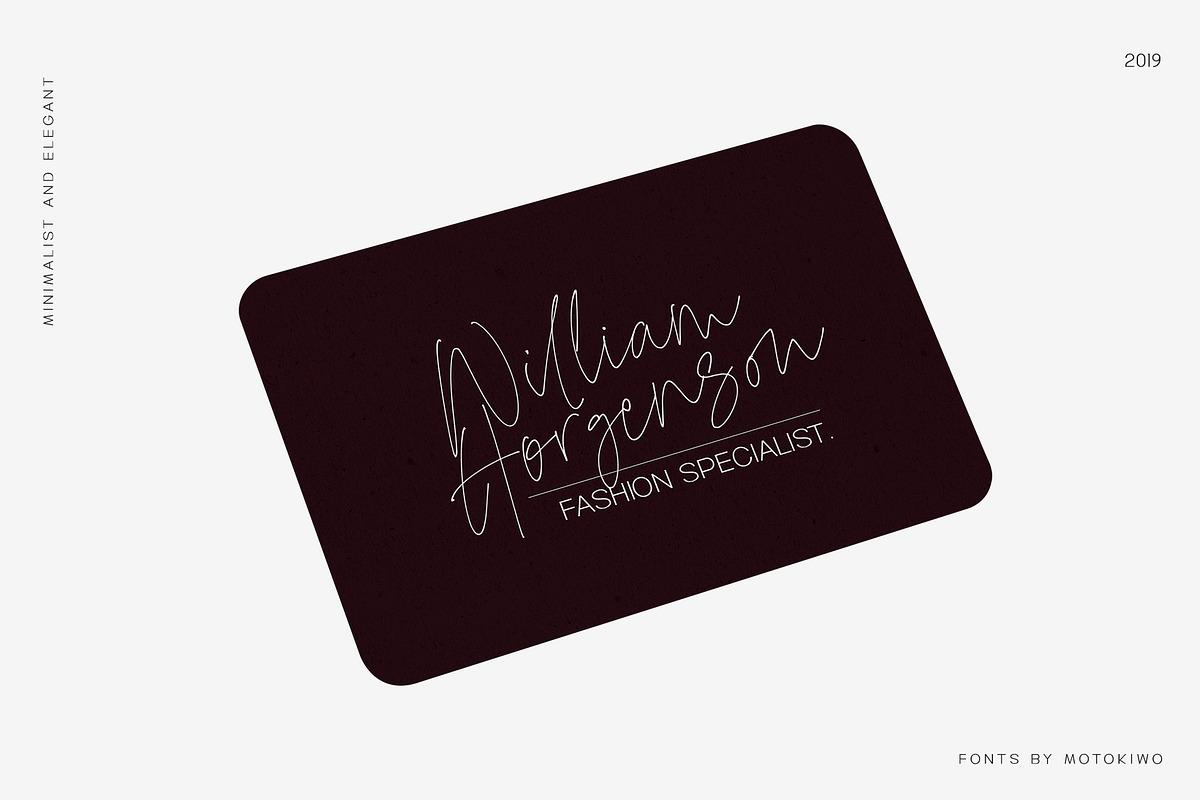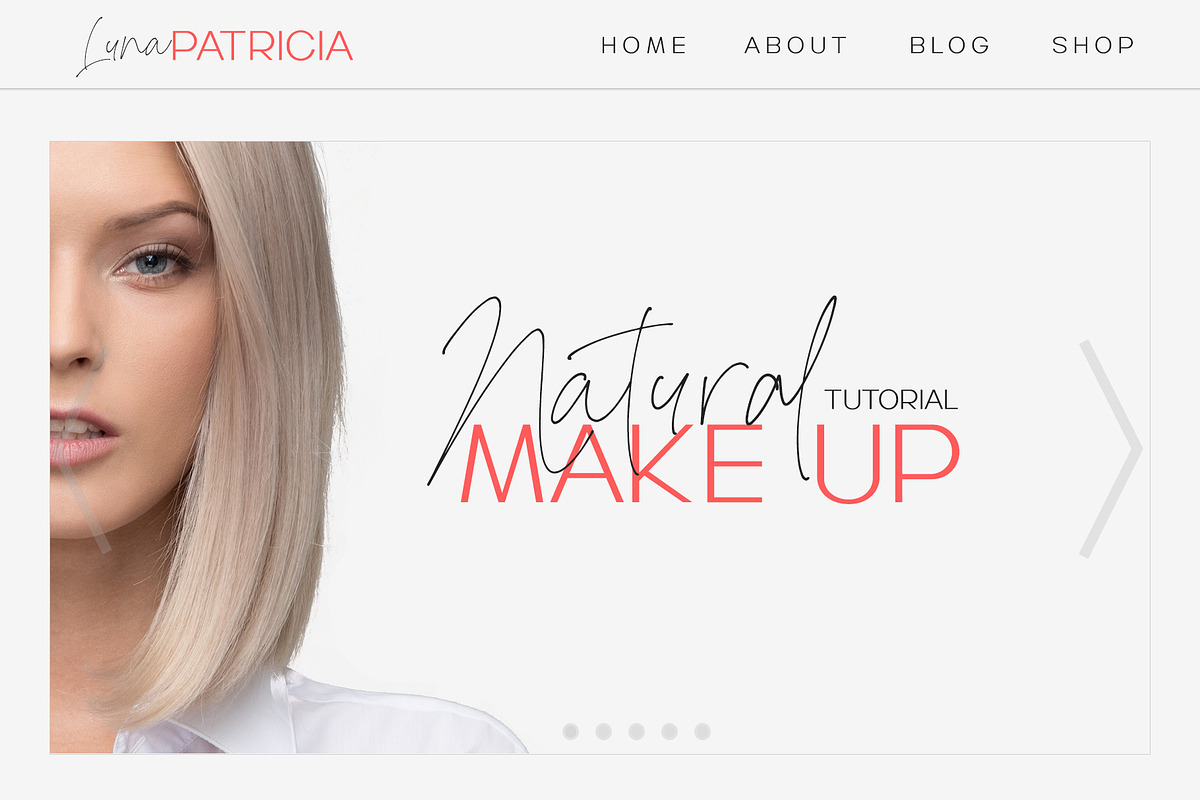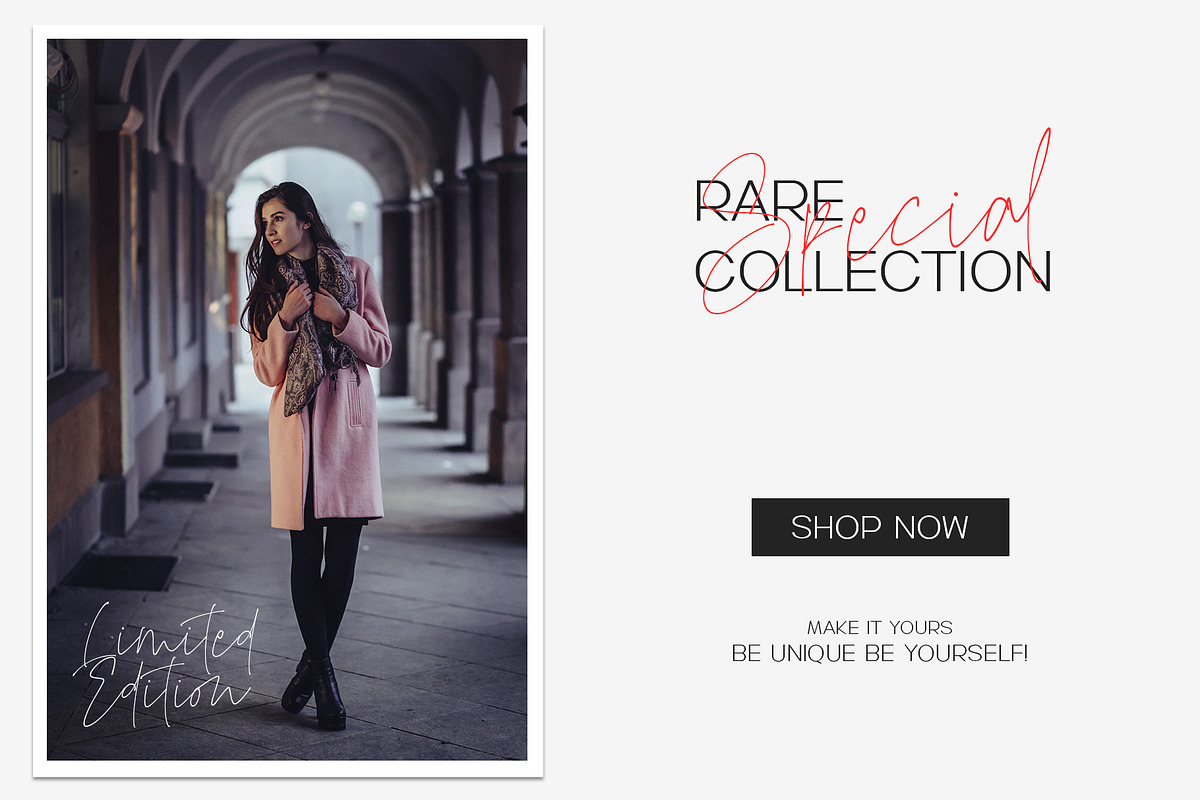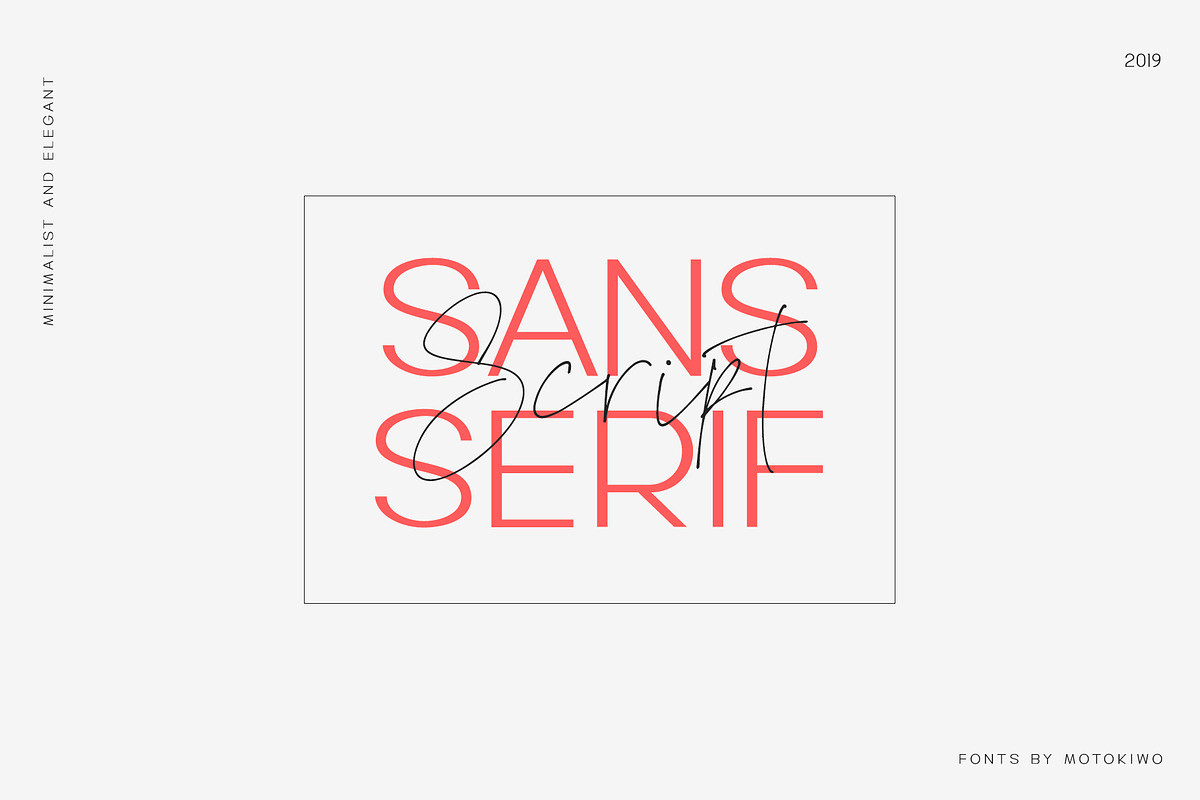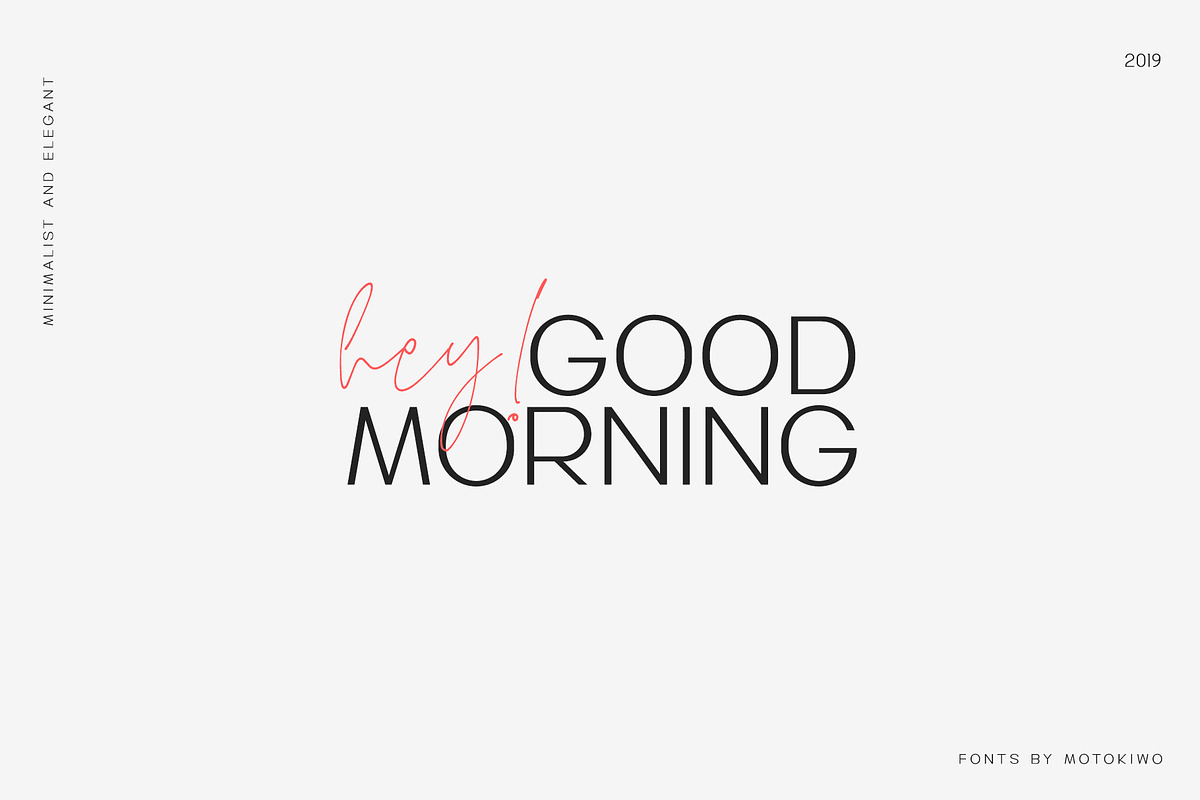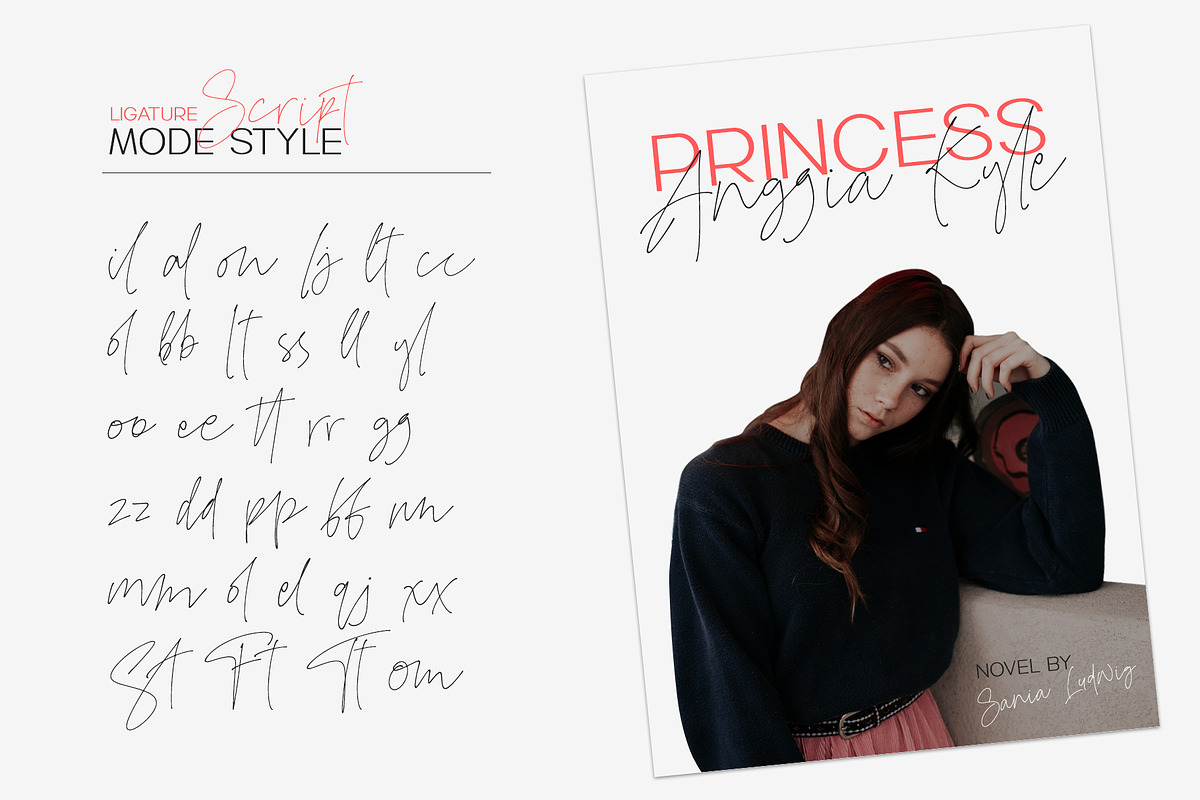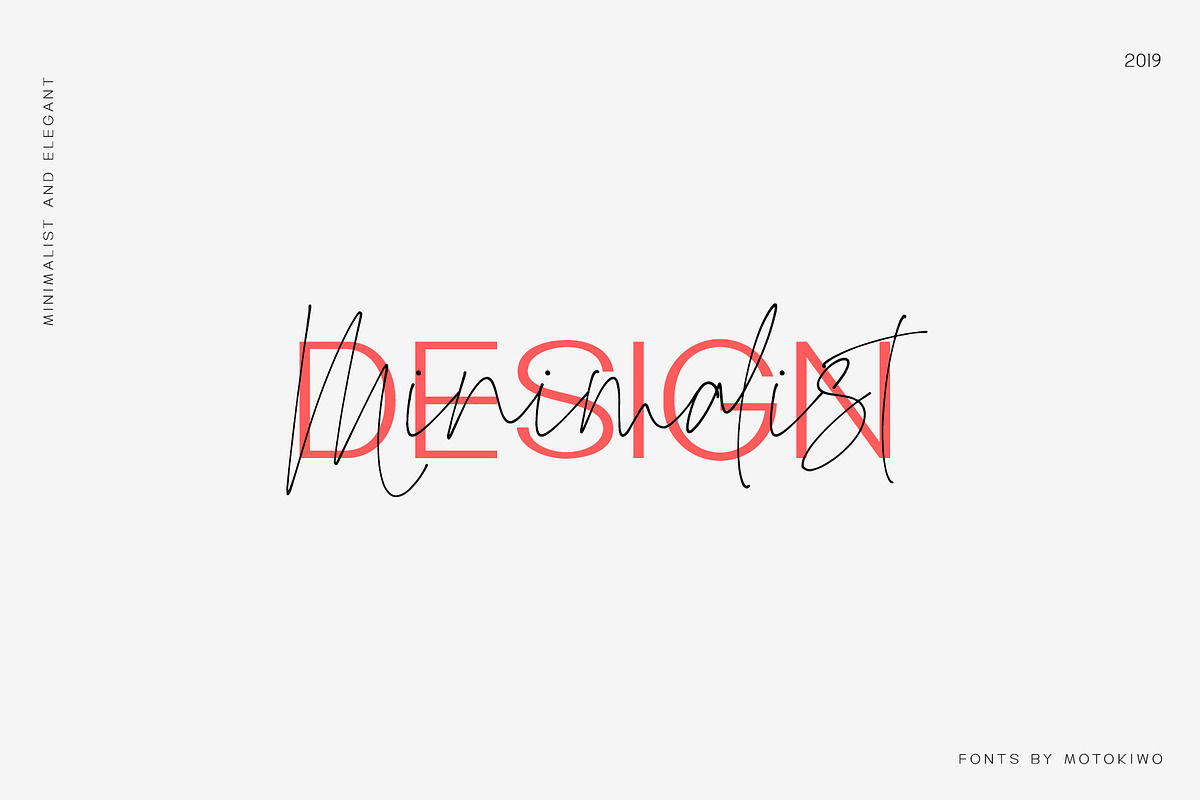
Mode Style | Font Duo
Fashion is about style, pairing the right one with the best one. Let me introduce Mode Style, best paired font between Sans Serif and Handwritten Script. It's suitable for logo, display purpose, or something else that needs elegant style.
1. Mode Style Sans, an elegant Sans Serif font with medium wide characters. This is All Caps font with large range of punctuation and multilingual support.
2. Mode Style Script, a classy thin Handwritten Script font with natural pen stroke feel. Comes with ligature make this font more close to the real handwritten, also support multilingual and already PUA Encoded.
- Comes with ligature make this font more close to the real handwritten, also support multilingual and already PUA Encoded.
- Mode Style Sans, an elegant Sans Serif font with medium wide characters.
- This is All Caps font with large range of punctuation and multilingual support.
- Comes with ligature make this font more close to the real handwritten, also support multilingual and already PUA Encoded.